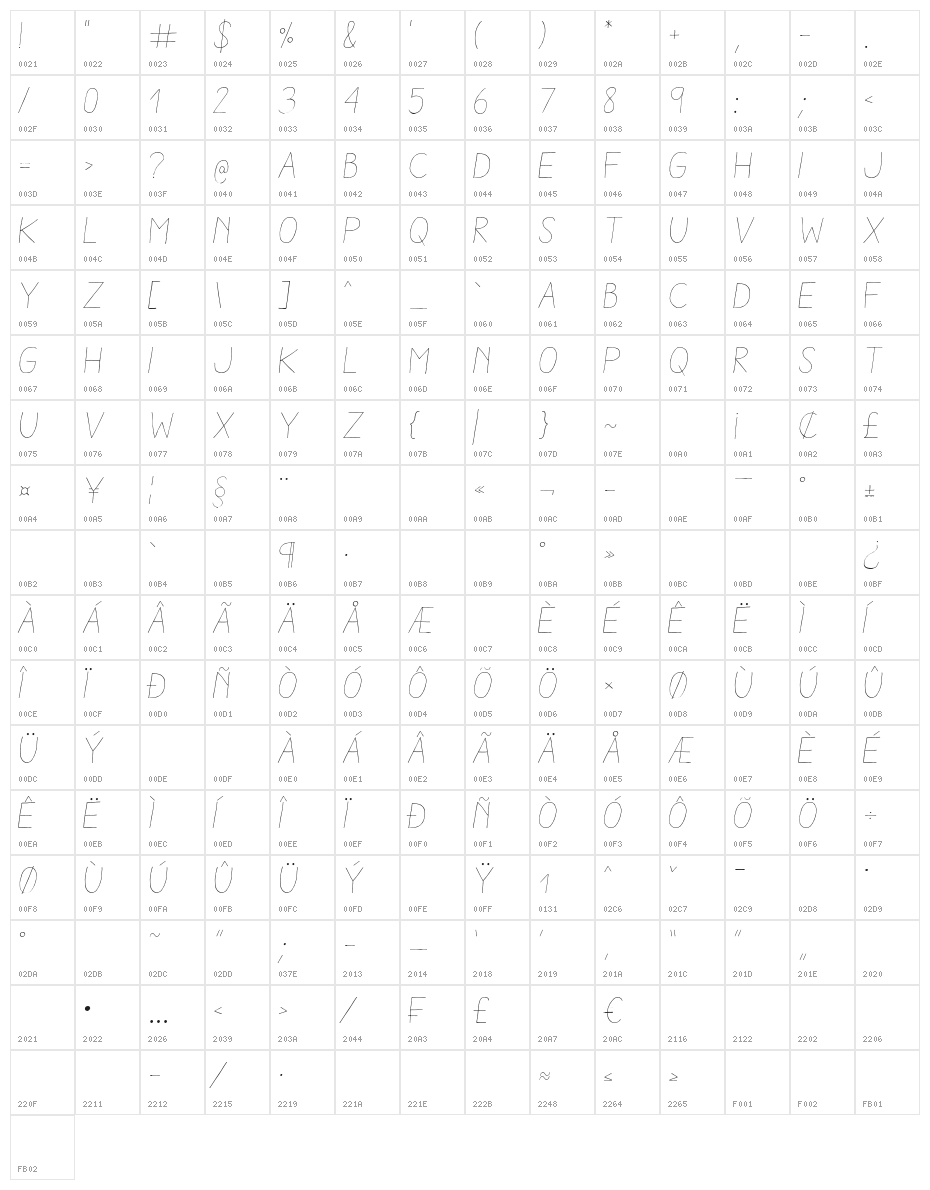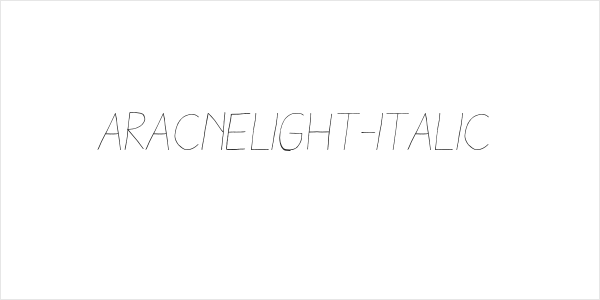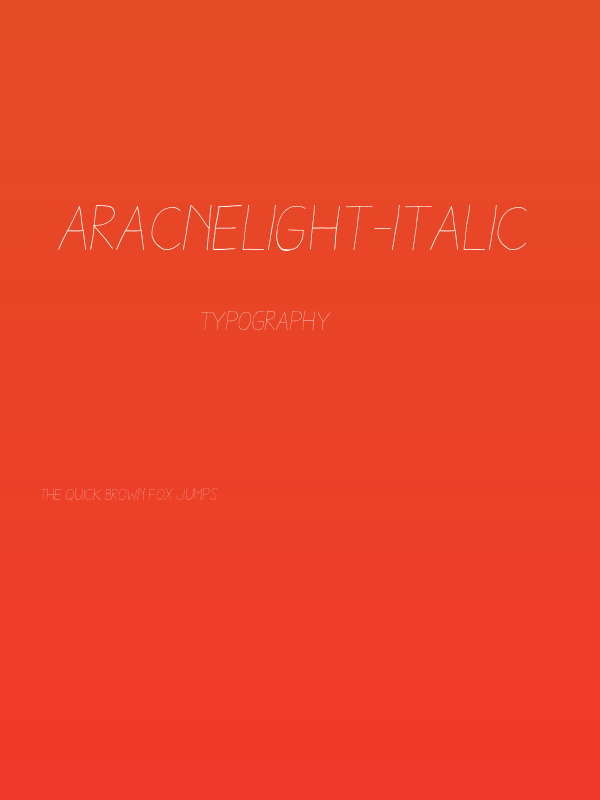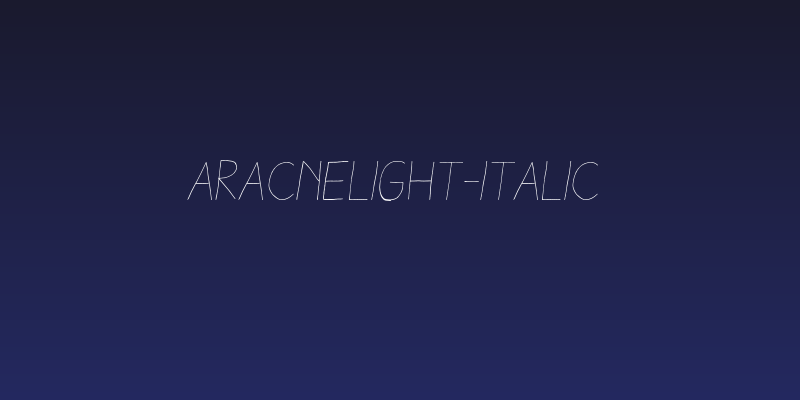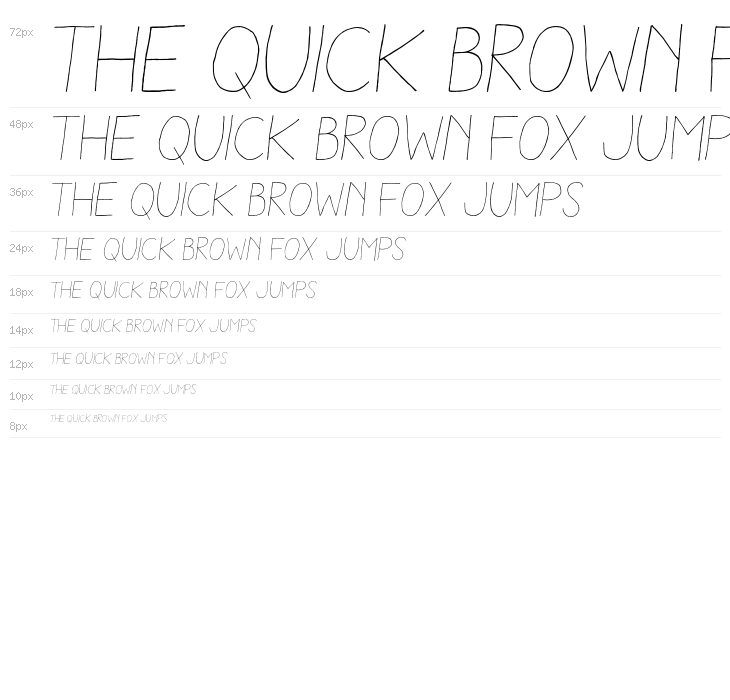
AracneLight-Italic Font
AracneLight-Italic Description
This font features a delicate and light design with a handwritten style, characterized by its thin strokes and slight slant, giving it an elegant and airy appearance. The uppercase and lowercase letters maintain a consistent flow, with a natural, organic feel. The numerals and special characters complement the alphabet with a similar lightness and simplicity. The overall look is clean and minimalistic, making it suitable for projects that require a touch of sophistication without overwhelming the viewer.
| Overall Style | Elegant and Minimalistic |
| Use Case | Headlines, Invitations, Personal Branding |
| Proposed Projects | Ideal for wedding invitations, personal branding, elegant stationery, and minimalist design projects. |